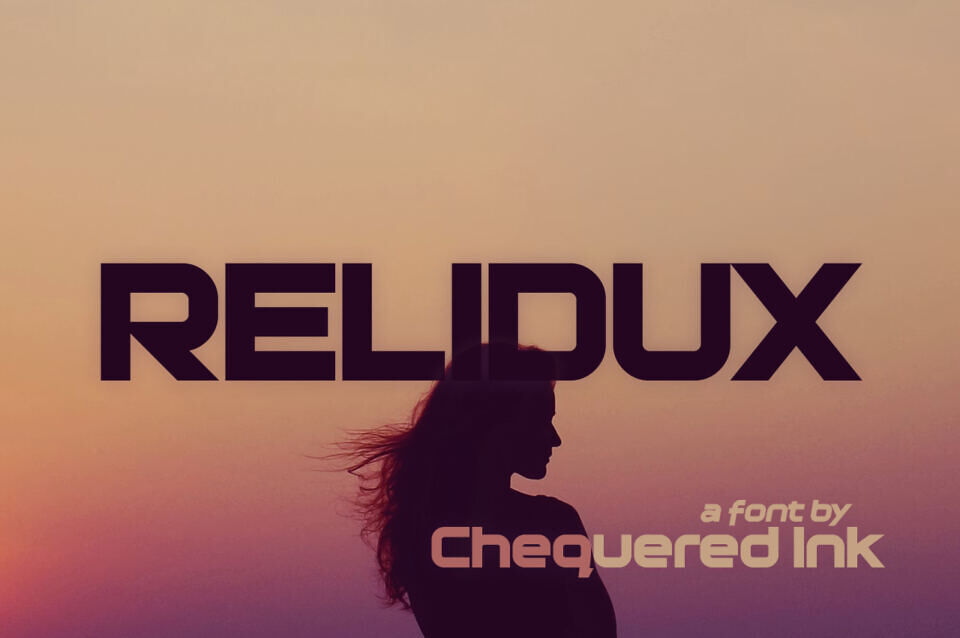
Relidux Font
Relidux is a modern, sci-fi-inspired display typeface characterized by its sleek, futuristic aesthetic. It features a technical, space-age design that fits well within the tech and electronic categories. Its structural form is engineered specifically for eye-catching titles and headings that require a contemporary, high-tech visual impact.
Designed by: Chequered Ink